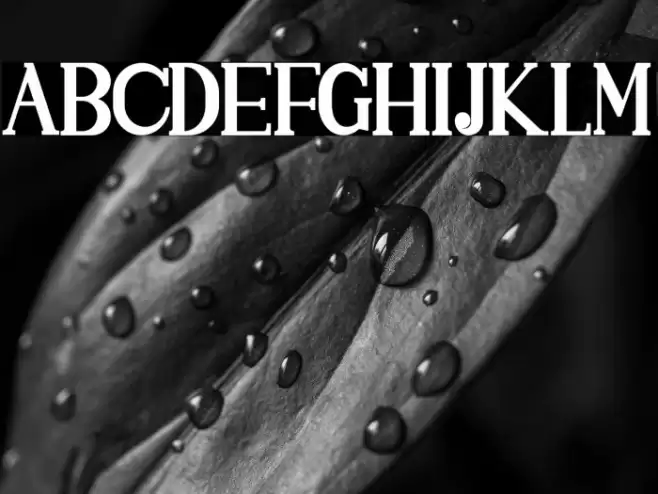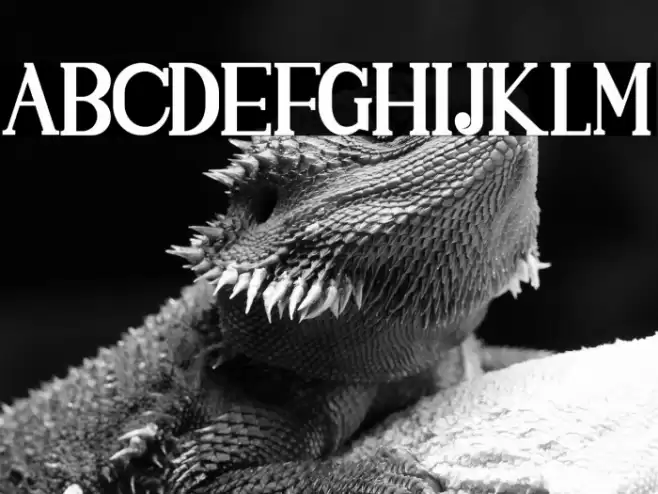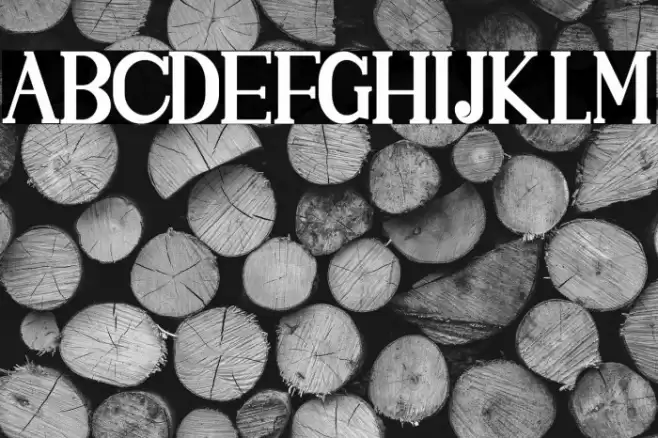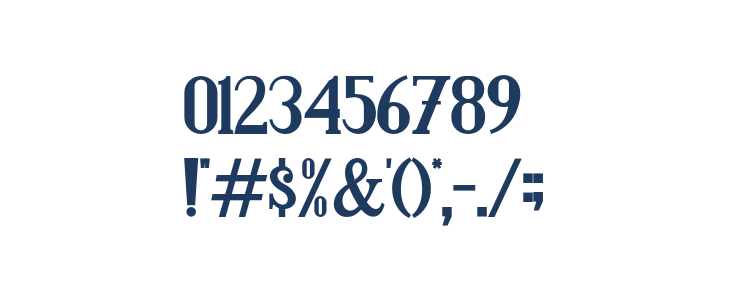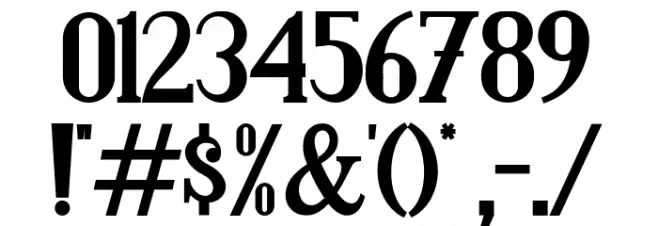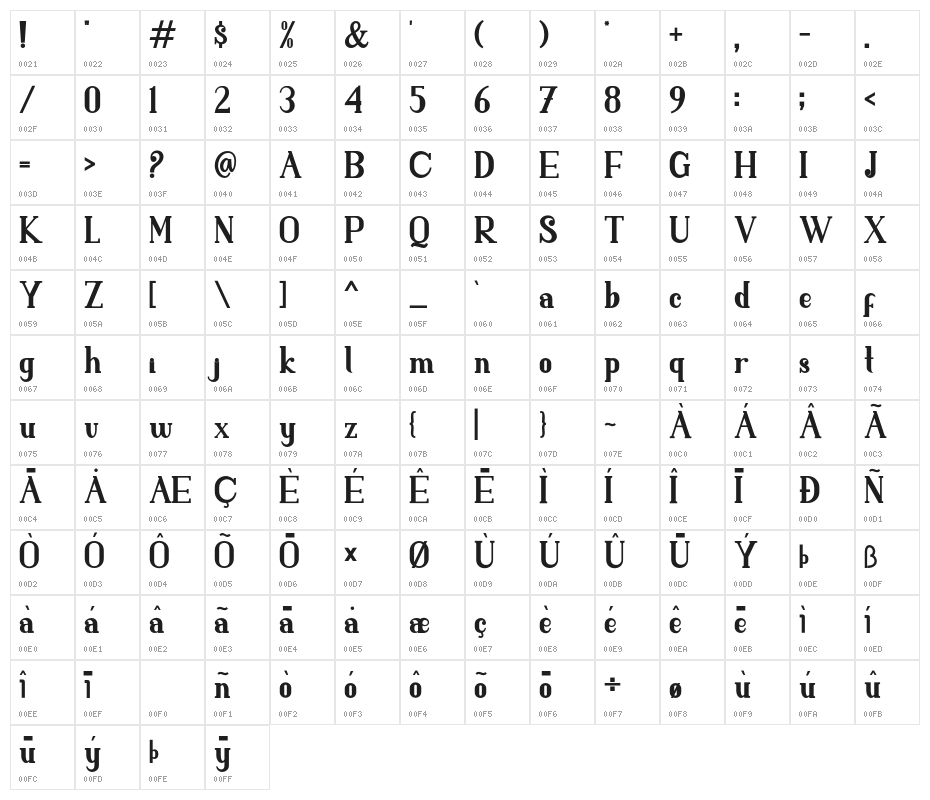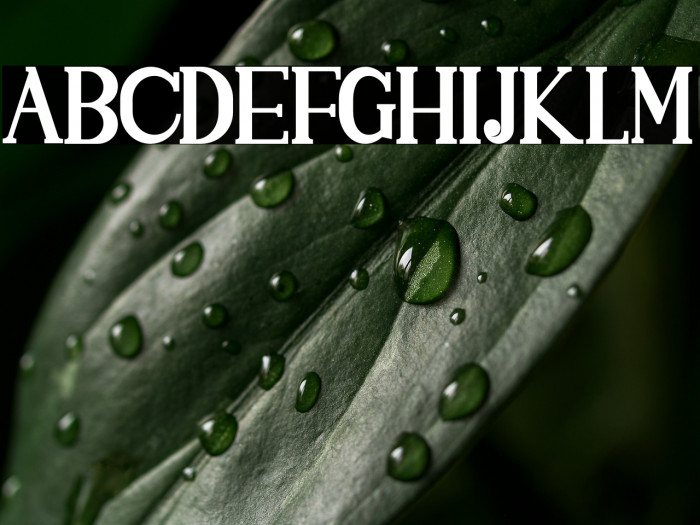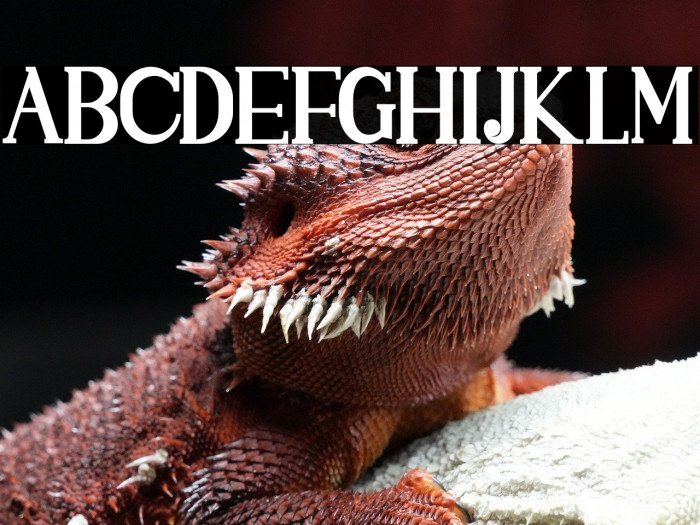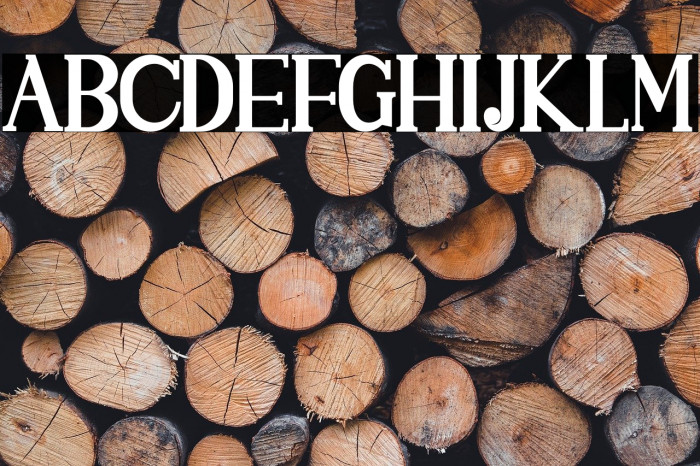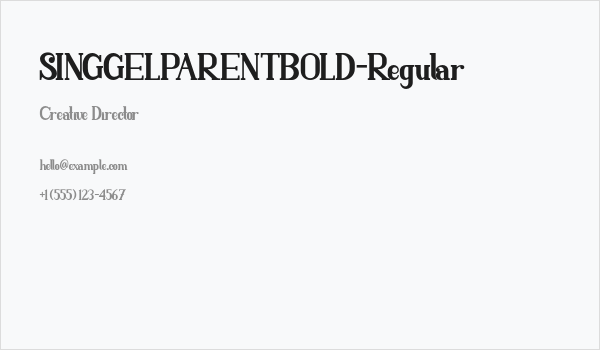
SINGGELPARENTBOLD-Regular Font
SINGGELPARENTBOLD-Regular Description
This font features a bold and striking design with high contrast between thick and thin strokes, giving it a dramatic and impactful appearance. The uppercase letters are tall and commanding, while the lowercase letters maintain a consistent style with unique curves and angles. The numerals are equally bold, ensuring readability and emphasis. Special characters are designed to match the overall bold aesthetic, making them stand out. This font's strong presence makes it suitable for attention-grabbing designs.
A bold, high-contrast font with dramatic strokes and a commanding presence from Uncategorized fonts.
- Proposed Projects: Ideal for headlines, posters, branding, and any design requiring a bold statement.